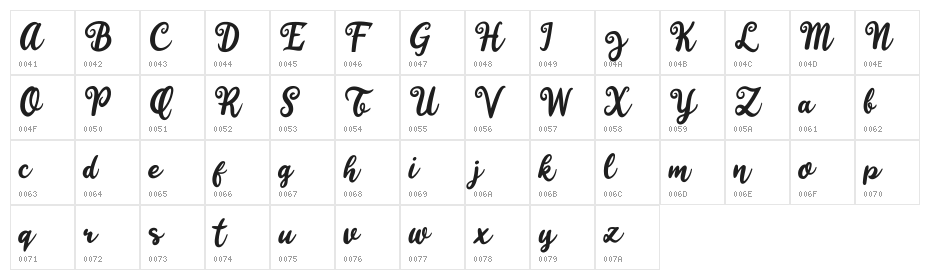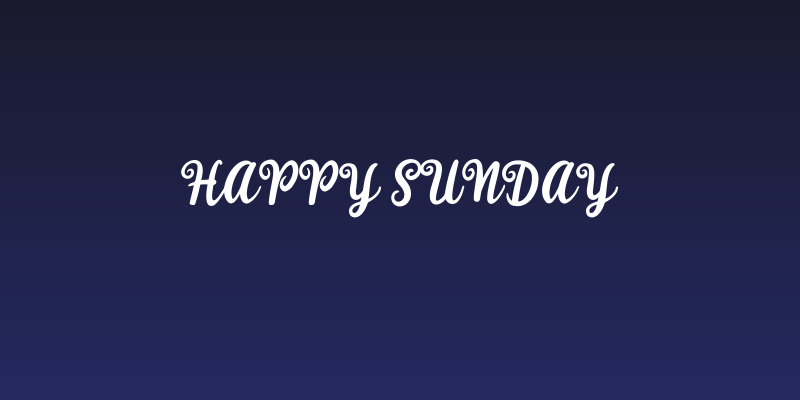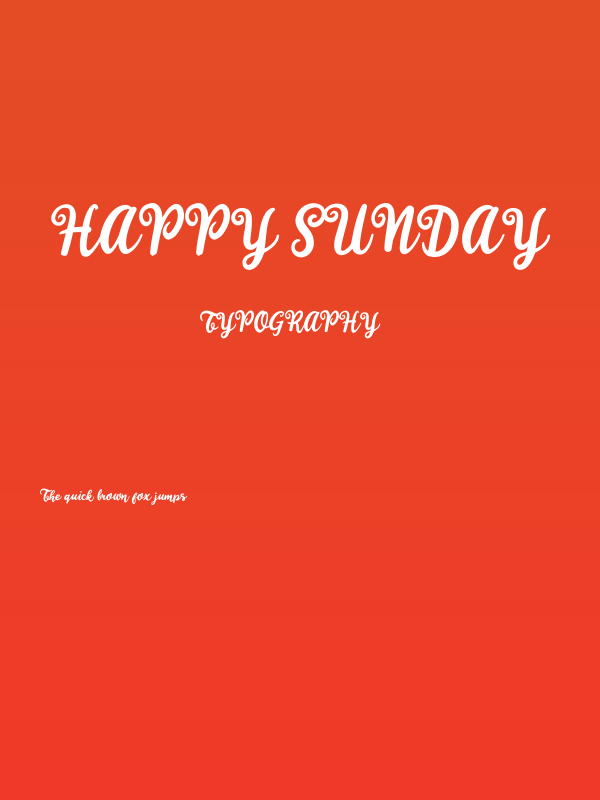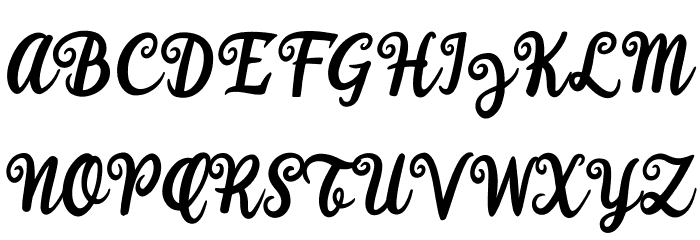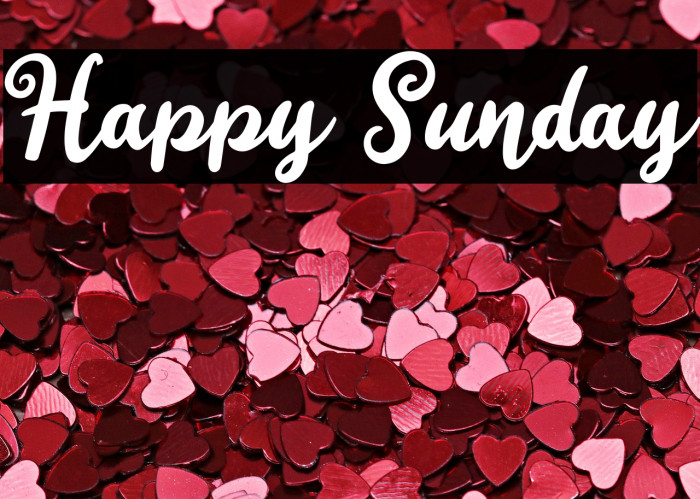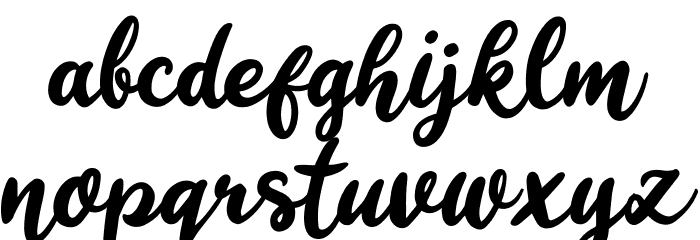
Happy Sunday Font
Happy Sunday Description
This font features a playful and flowing script style, characterized by its smooth, cursive letterforms that exude a sense of elegance and charm. The letters are interconnected, creating a seamless flow that enhances readability while maintaining a decorative appeal. The uppercase letters are slightly more ornate, with subtle flourishes that add a touch of sophistication. The lowercase letters are rounded and consistent, contributing to a harmonious overall appearance. This font is versatile, suitable for both formal and informal contexts, and its bold strokes ensure visibility and impact.
| Proposed Projects | Ideal for wedding invitations, greeting cards, branding, and social media graphics. |